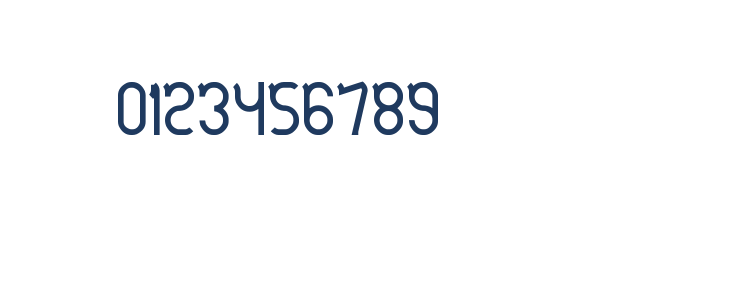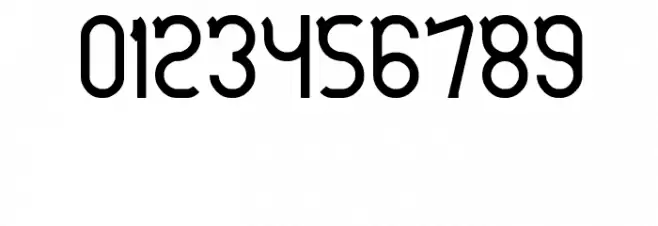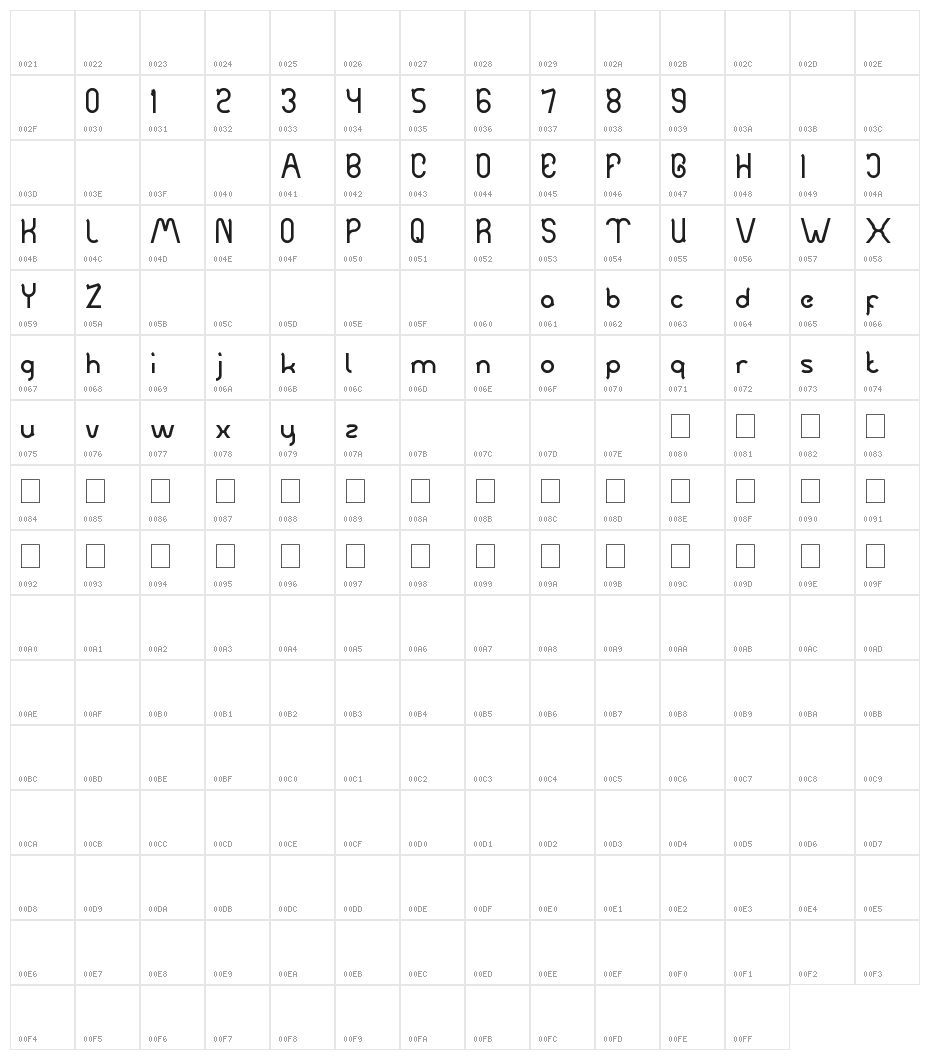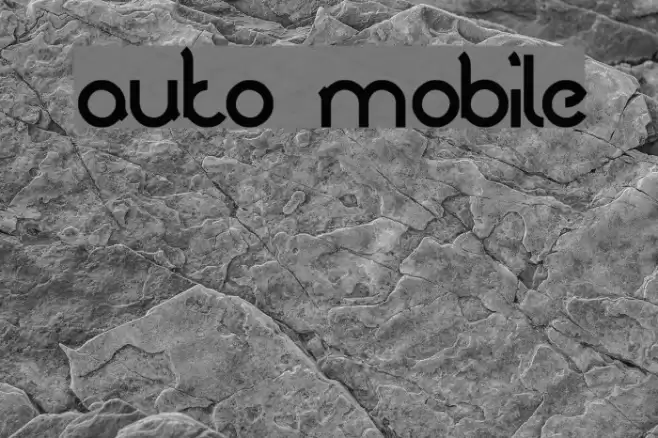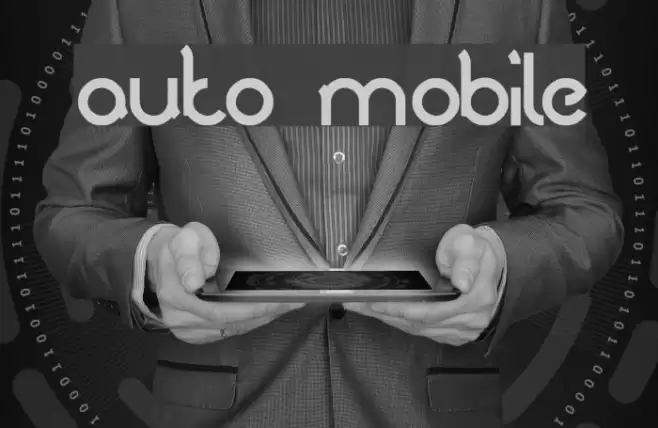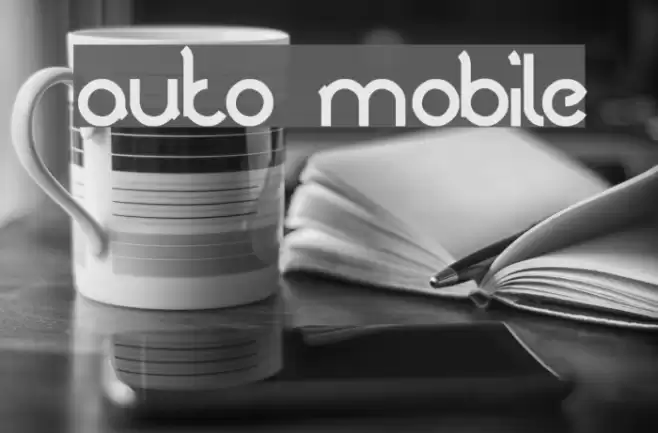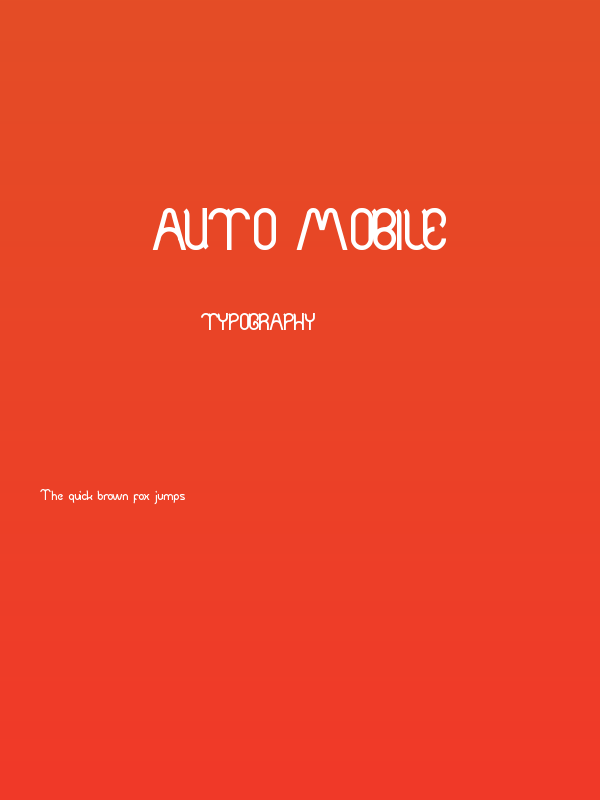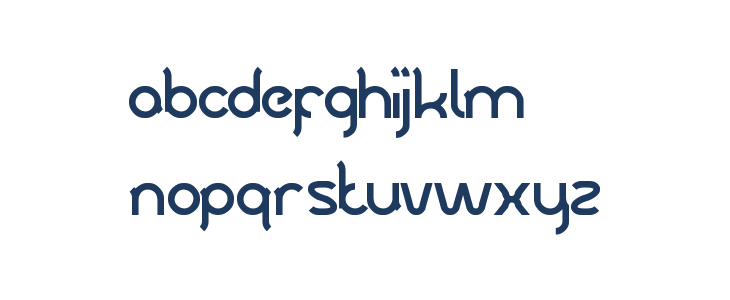
auto mobile Font
auto mobile Description
This font features a unique and artistic design with a modern flair. The characters are bold and have a distinct geometric style, with rounded edges and a playful, almost whimsical appearance. The uppercase letters are tall and narrow, while the lowercase letters maintain a consistent height, creating a harmonious balance. The numbers are equally stylized, matching the overall aesthetic of the alphabet. This font is perfect for projects that require a touch of creativity and modernity, such as branding, posters, and digital media.